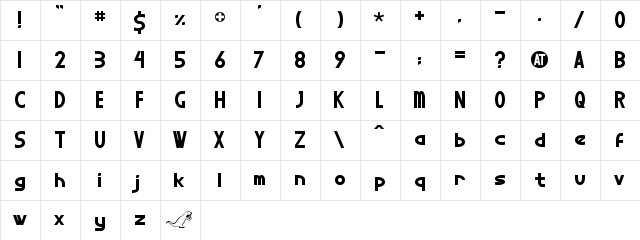
Kitchener Regular
Design Context for Kitchener Typeface
Kitchener is a composed and adaptable typeface that performs quietly and consistently across a wide range of design contexts.